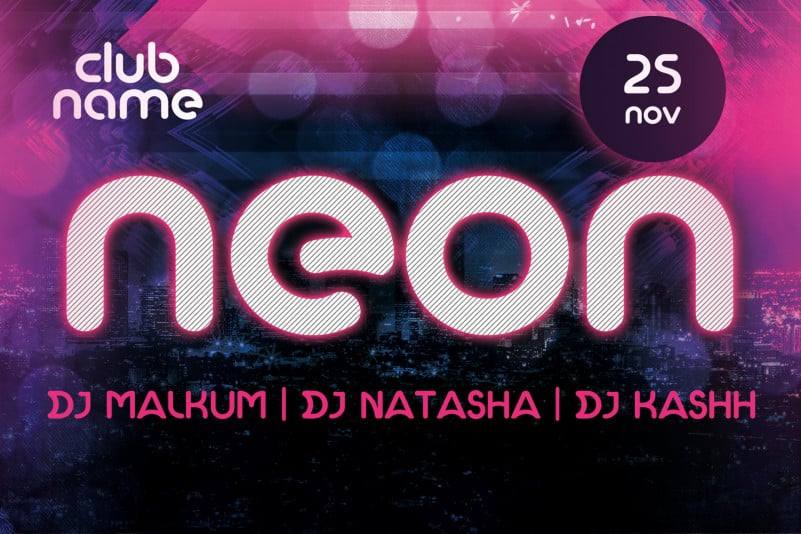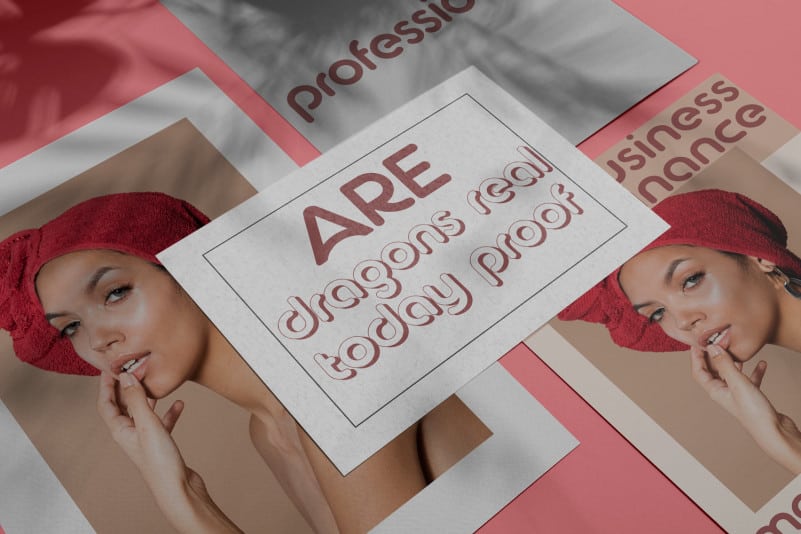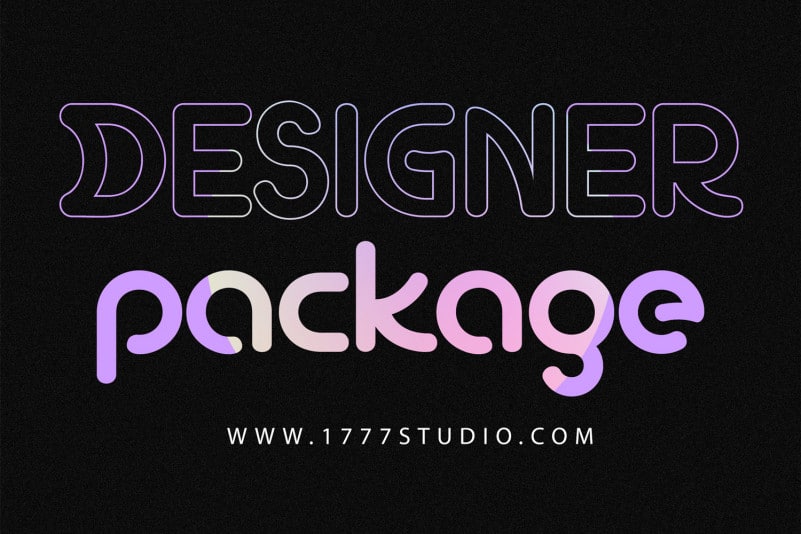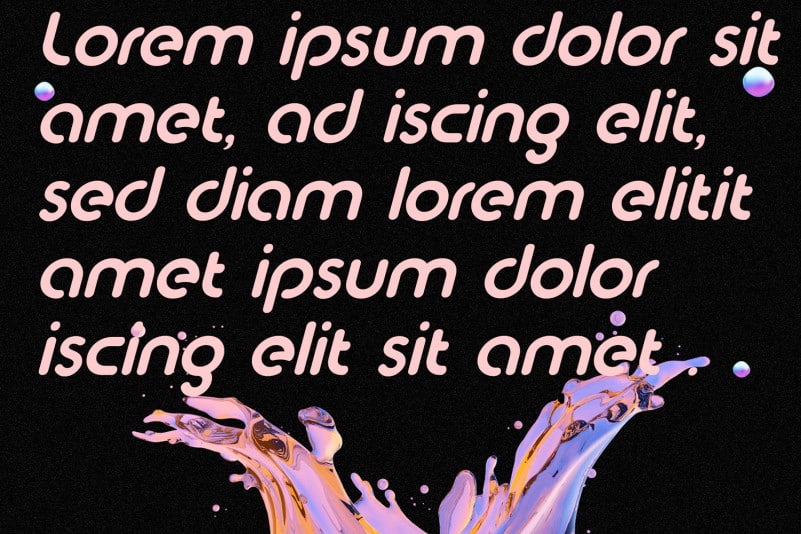
Aremat font is a clean, minimal, modern sans typeface. It’s a round geometric experimental font. Specifically developed to be suitable for logos, headlines, titles and posters. It has a pronounced futuristic vision and could be called a modern font, even though suits in a retro ambient.